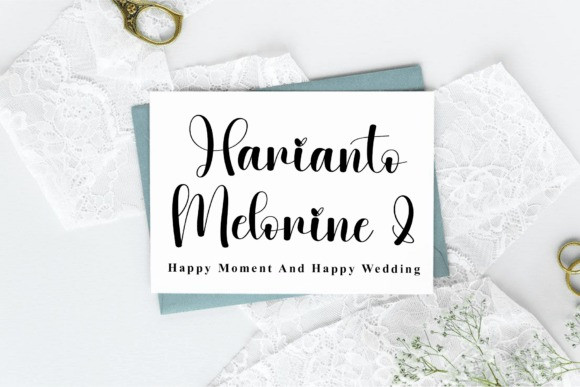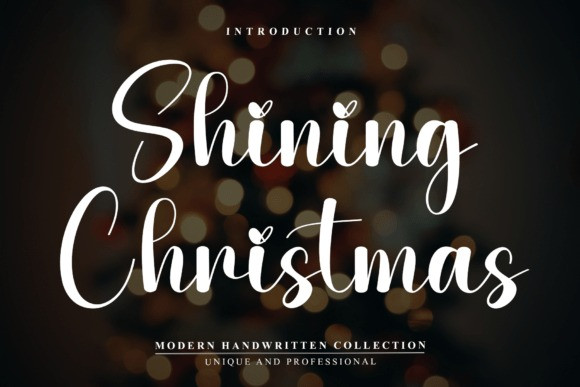
Shining Christmas Script Typeface
Shining Christmas Typeface is a modern handwritten script font that combines elegance with a personal touch.Its fluid strokes and gentle curves mimic the natural flow of real handwriting, making it perfect for wedding invitations, logos, stationery, Instagram quotes, and branding projects. This font is both sophisticated and accessible, with just the right amount of flair to elevate your designs while maintaining readability. Whether you’re creating minimalist artwork or luxurious prints, Calligraphy adds a graceful and human element to any project.Starlight script font is also PUA-encoded, ensuring effortless access to all glyphs, swashes, and alternate characters to help you customize your creations with ease.